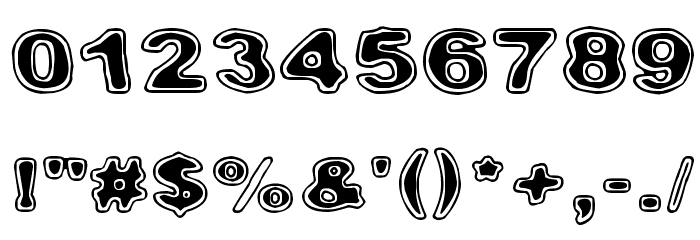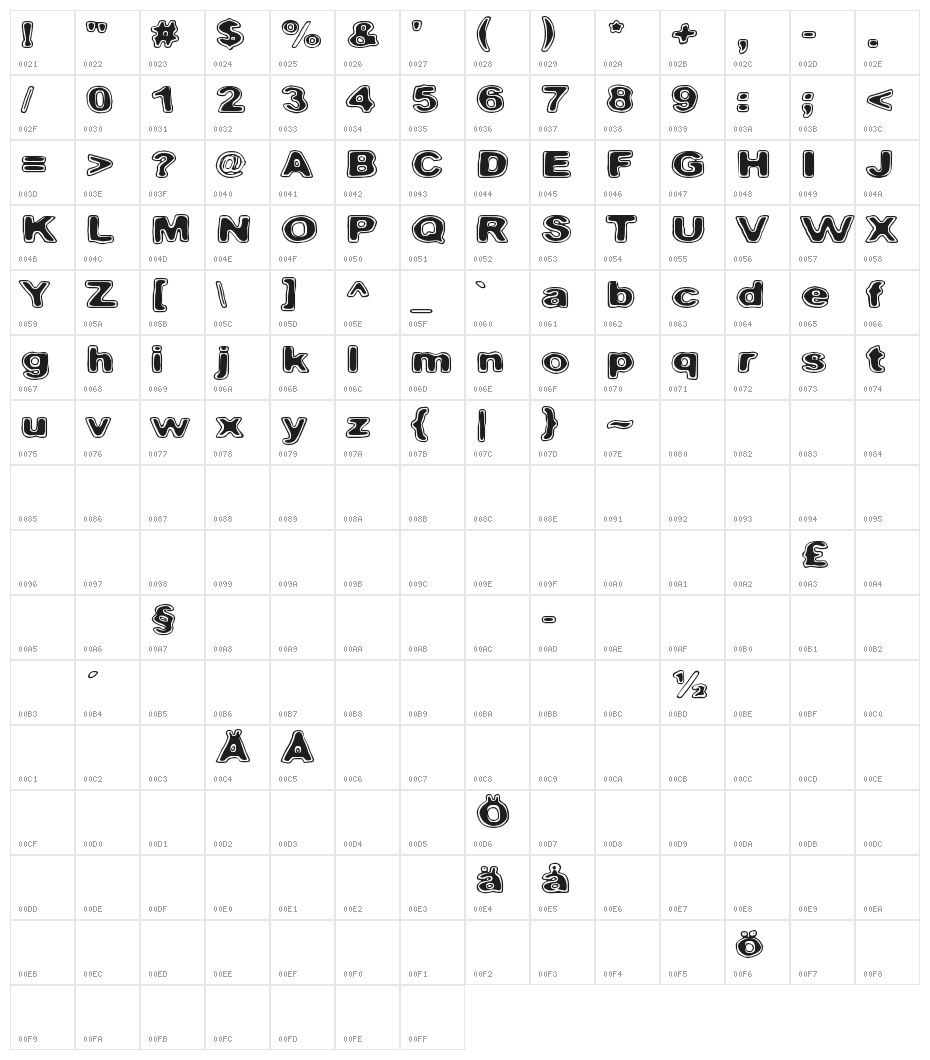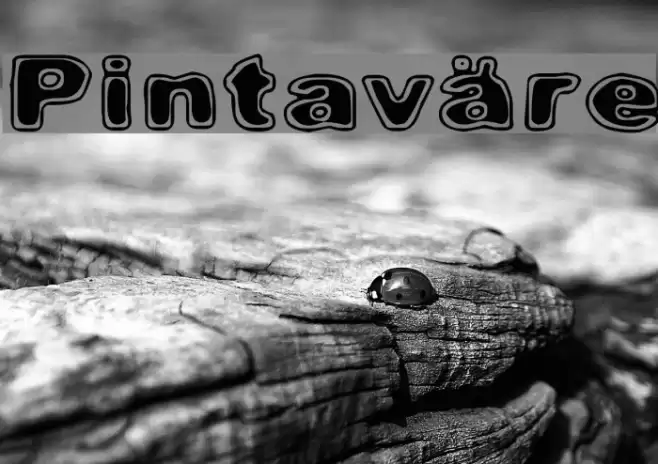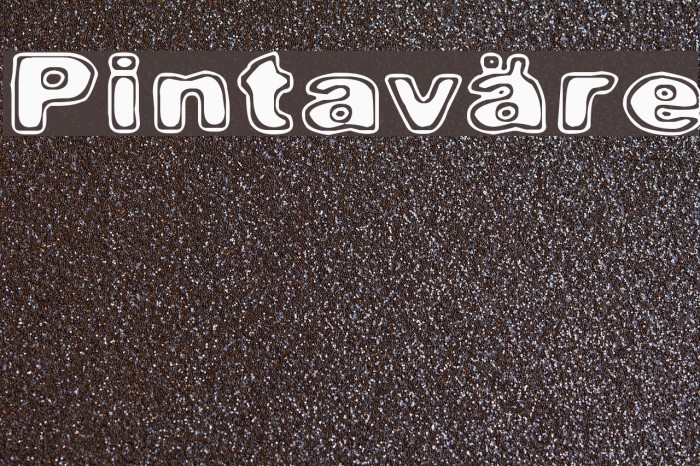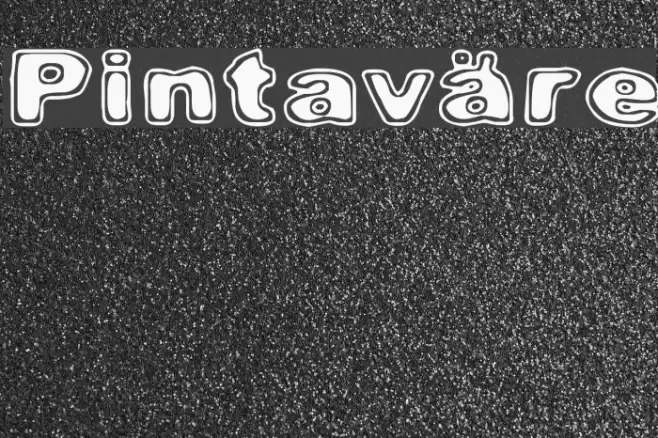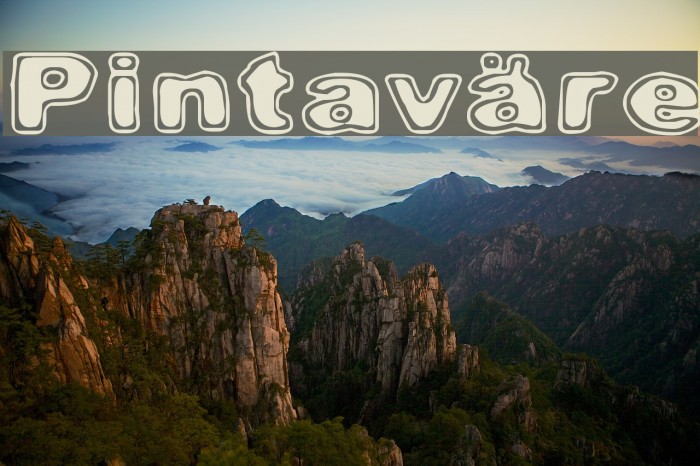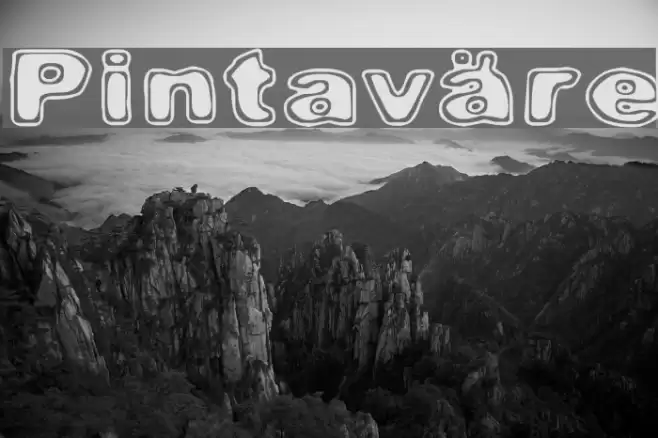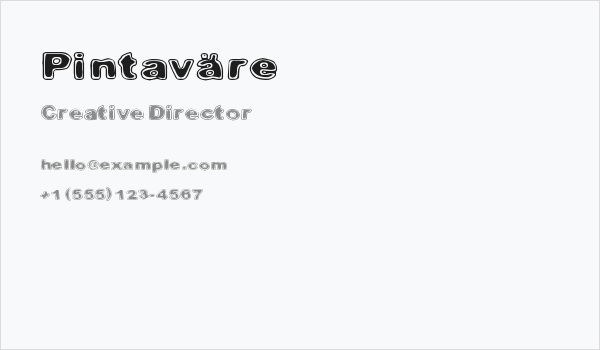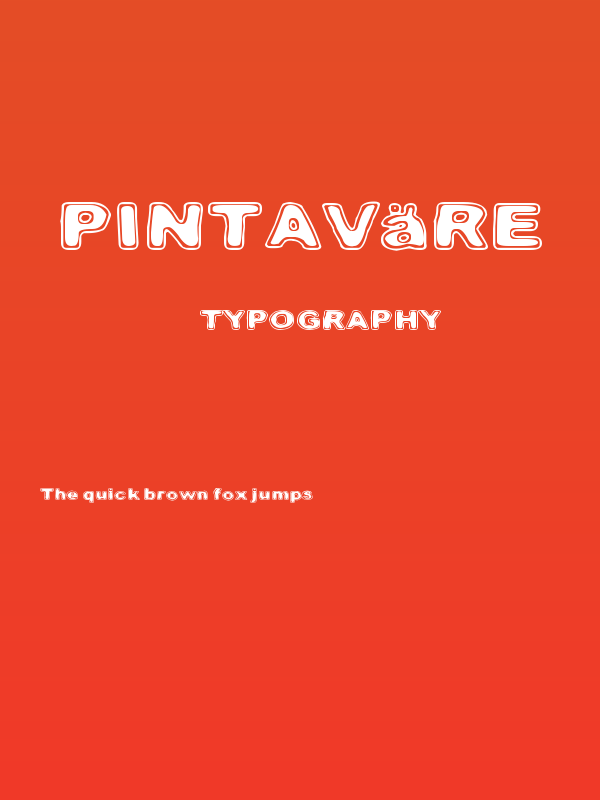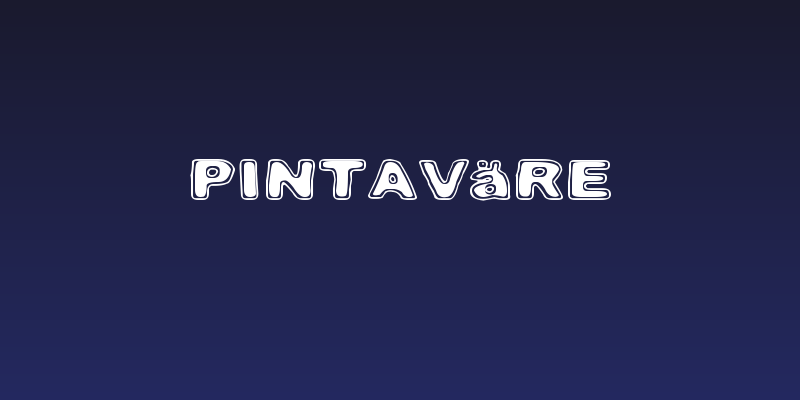
Pintaväre Font
Pintaväre Description
This font features a bold, playful style with a thick outline that gives each character a three-dimensional appearance. The letters are rounded and have a soft, friendly look, making them ideal for informal and fun designs. The uppercase and lowercase letters maintain a consistent style, with the lowercase being slightly smaller but equally bold. Numbers and special characters follow the same design principles, ensuring a cohesive look across all text elements. The font's unique outline effect adds depth and interest, making it stand out in any design.
| Overall Style | Playful, Fun, Decorative |
| Proposed Projects | Ideal for children's books, playful branding, posters, and any design requiring a fun and engaging typeface. |